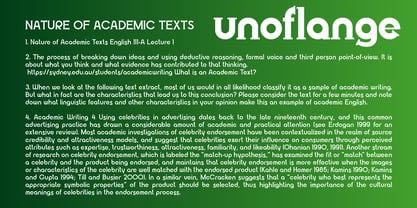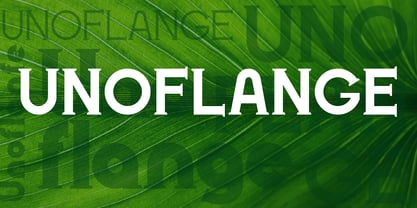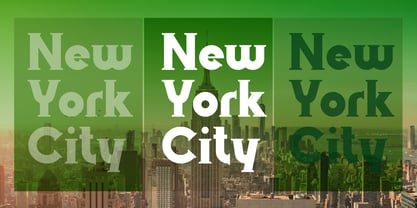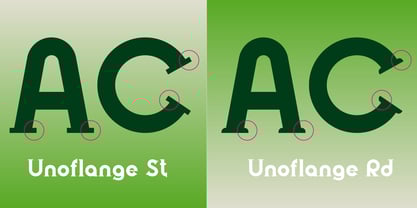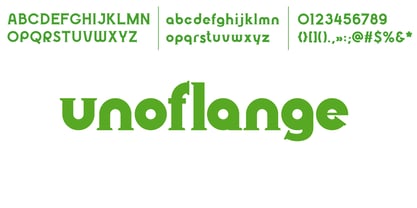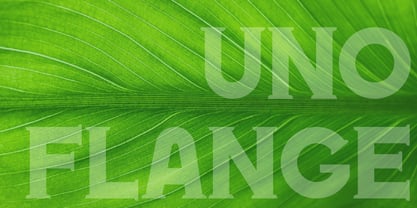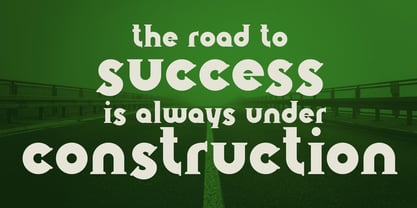
Unoflange
by VladB
The Unoflange Font Family was designed by Volodymyr Berla and published by VladB. Unoflange contains 8 styles and family package options. More about this family
Unoflange is a contemporary geometric serif font that features both upper and lower case characters, supporting a wide range of scripts including Latin, Cyrillic, Latin Eastern Europe, Turkish, Baltic, and more. The Unoflange family comprises 8 distinct fonts, organized into 2 style subgroups (St, Rg), each offering 4 thickness variations. This versatile font collection is ideal for branding, poster design, and various graphic applications, as well as for word processing tasks.
Designers: Volodymyr Berla
Foundry: VladB
My name is Volodymyr. I have been developing logos and brand elements since 2013. In the process of work, I constantly deal with various fonts, so I gradually came to the decision to independently develop the fonts that I need in my work. Thus, I have developed and continue to develop my collection of fonts. I've been developing fonts since 2019. Currently I design mostly modern and technical typefaces.